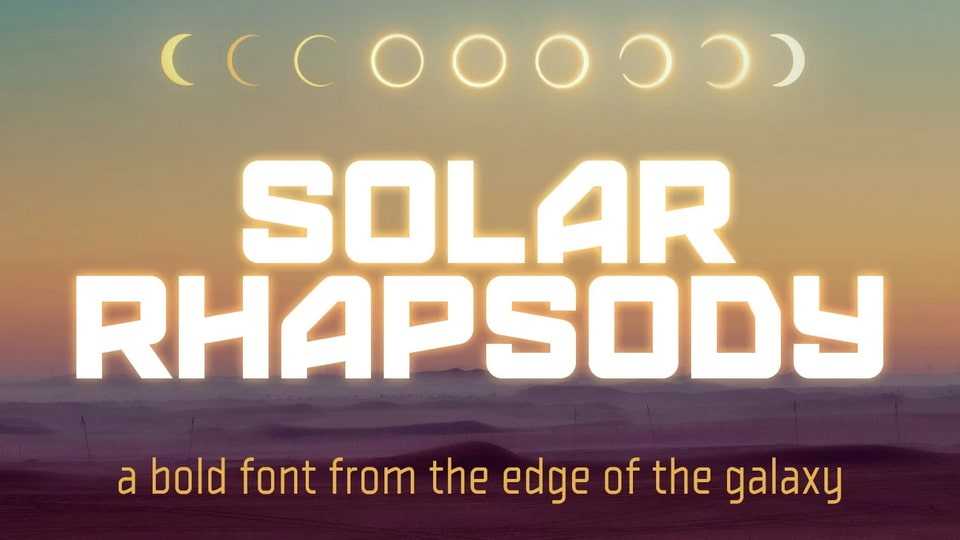
Download Solar Rhapsody font, a bold, futuristic typeface that embodies the spirit of sci-fi exploration and innovation with its geometric precision and clean lines.
Designer: Edward Batkins